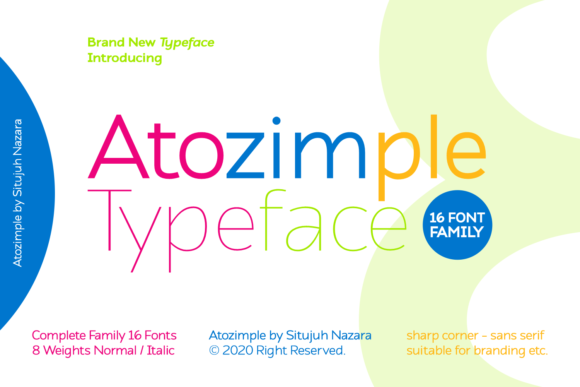
The Ultimate Guide to Atozimple Font: A Designer’s New Best Friend
I’ll never forget the design project that had me stuck in a font loop. My client wanted a modern, clean look for their branding, but I was struggling to find the perfect sans serif font. That was until I stumbled upon Atozimple. This stunning font family has been a game-changer for my design workflow, and I’m excited to share its awesomeness with you! 😊
An Honest Review of Atozimple Font
What I Love About Atozimple ✨
- ✅ Extremely legible, even at small font sizes
- ✨ 16 styles to choose from, making it versatile for various design projects
- 💻 Works great for both print and web applications
- 🔥 Unique look that adds a touch of modernity to any design
- ⚠️ Some users might find the font too similar to other popular sans serif fonts
- 🤔 Limited language support, so double-check if your project requires specific character sets
The Story Behind Atozimple Font
Atozimple was designed with the goal of creating a versatile, modern sans serif font family that could be used for a wide range of design projects. The designer aimed to craft a font that was both clean and elegant, with a unique personality that would stand out in any design.
| Font Name | Atozimple Font |
| Author | Situjuh |
| What makes Atozimple font so special? | Atozimple’s unique blend of modernity and elegance, combined with its 16-style versatility, makes it an excellent choice for various design projects. |
| Is Atozimple suitable for body text? | Yes, Atozimple is extremely legible, making it suitable for body text in both print and digital applications. |
| Does Atozimple support multiple languages? | While Atozimple supports a wide range of characters, its language support might be limited. Be sure to check the font’s capabilities before using it for projects with specific language requirements. |